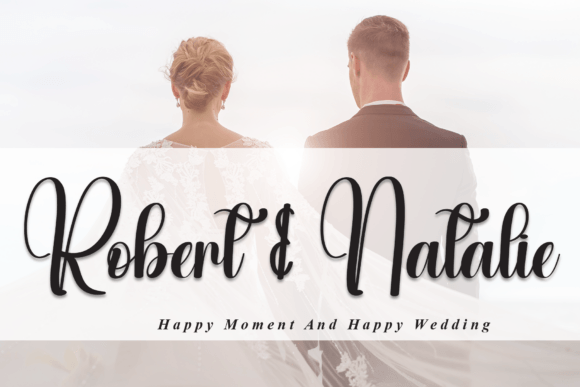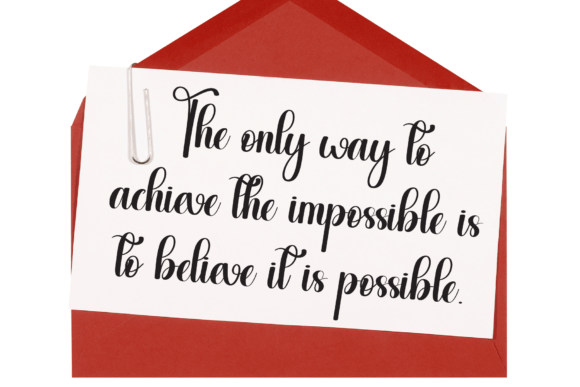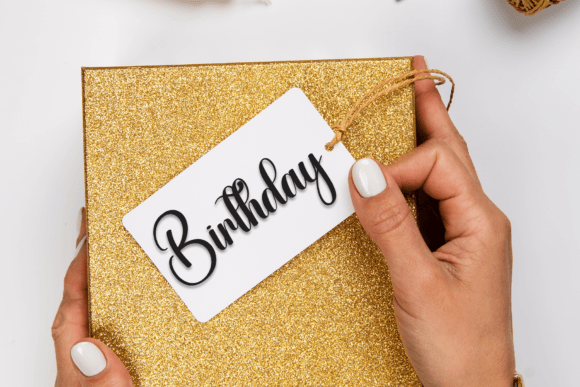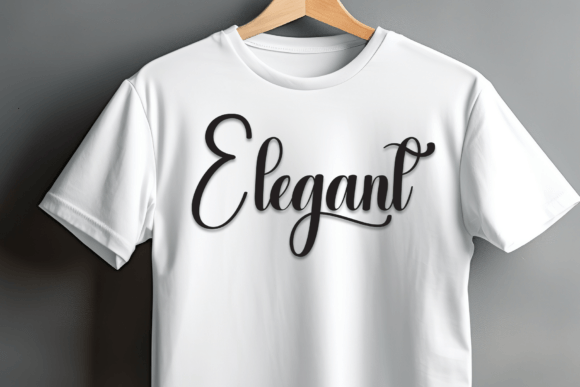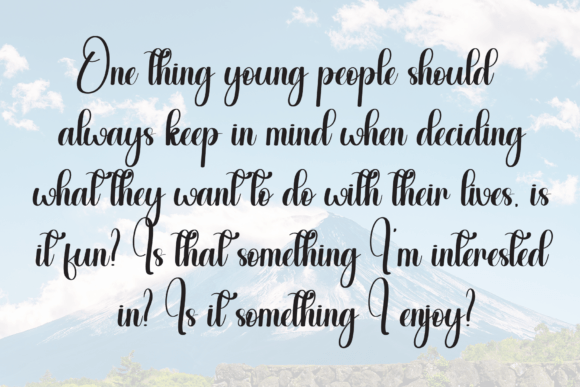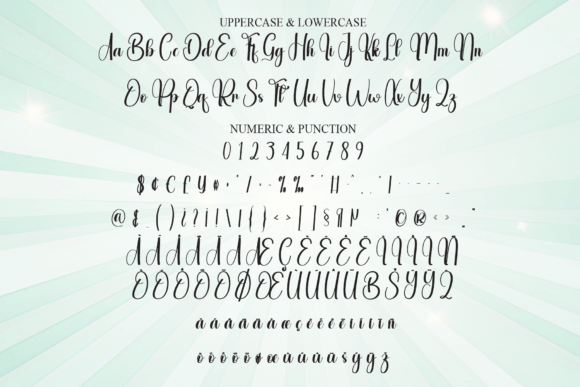
Introducing Brightnes Font: The Charming Handwritten Display Font for Your Creative Projects
Are you a designer or crafter looking for a font that adds a touch of warmth and personality to your creative projects? Look no further than Brightnes Font, a charming and amicable handwritten display font that is sure to bring a smile to your face. With its playfully delightful and heartwarming touch, this font is perfect for designing wedding invitations, unique greeting cards, and any other creative project that calls for a sprinkle of joyous charm.
What Makes Brightnes Font So Special?
Brightnes Font is a one-of-a-kind handwritten display font that is designed to add a personal touch to your creative projects. Its unique and charming lettering style is perfect for creating eye-catching and memorable designs that will leave a lasting impression on your audience. Whether you’re designing a wedding invitation, a greeting card, or a social media graphic, Brightnes Font is the perfect choice for adding a touch of warmth and personality to your design.
Brightnes Font is specifically designed with wedding invitations and greeting cards in mind. Its playful and charming lettering style is perfect for creating beautiful and memorable designs that will make your loved ones feel special. Whether you’re designing a formal wedding invitation or a casual greeting card, Brightnes Font is the perfect choice for adding a touch of joy and personality to your design.
Brightnes Font is not just limited to wedding invitations and greeting cards. Its versatility and charm make it perfect for a wide range of creative projects, including:
• Blog and website headers
• Branding and packaging design
• Signs and posters
• Party and event invitations
Why Choose Brightnes Font?
So why choose Brightnes Font for your creative projects? Here are just a few reasons:
• Unique and charming lettering style: Brightnes Font has a one-of-a-kind handwritten display font style that is sure to add a touch of personality to your designs.
• Playfully delightful and heartwarming: This font is designed to bring a smile to your face and add a touch of joy to your designs.
• Perfect for wedding invitations and greeting cards: Brightnes Font is specifically designed with wedding invitations and greeting cards in mind, making it the perfect choice for these types of projects.
• Endless creative possibilities: This font is versatile and can be used for a wide range of creative projects, from social media graphics to branding and packaging design.
Brightnes Font is a charming and amicable handwritten display font that is perfect for adding a touch of warmth and personality to your creative projects. With its playfully delightful and heartwarming touch, this font is sure to bring a smile to your face and make your designs stand out. Whether you’re designing a wedding invitation, a greeting card, or a social media graphic, Brightnes Font is the perfect choice for adding a sprinkle of joyous charm to your design.